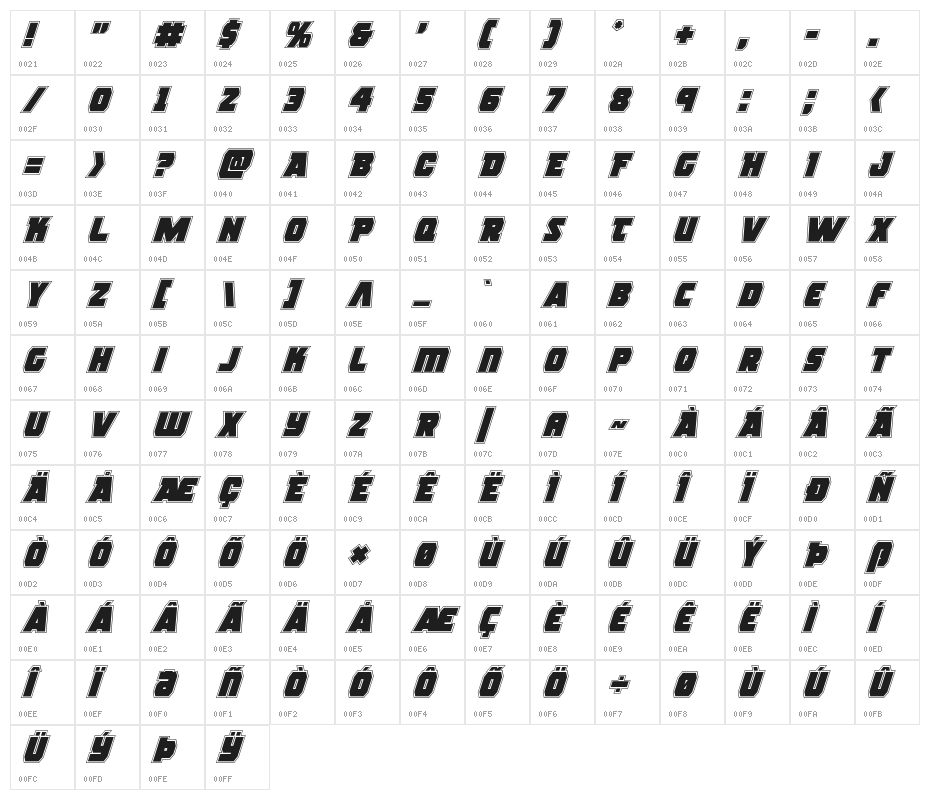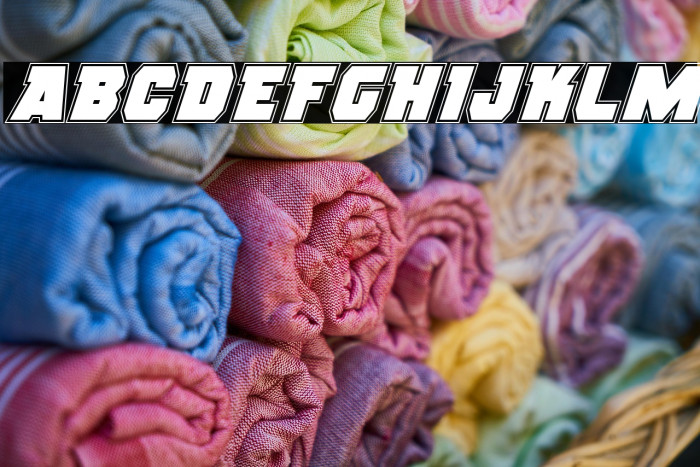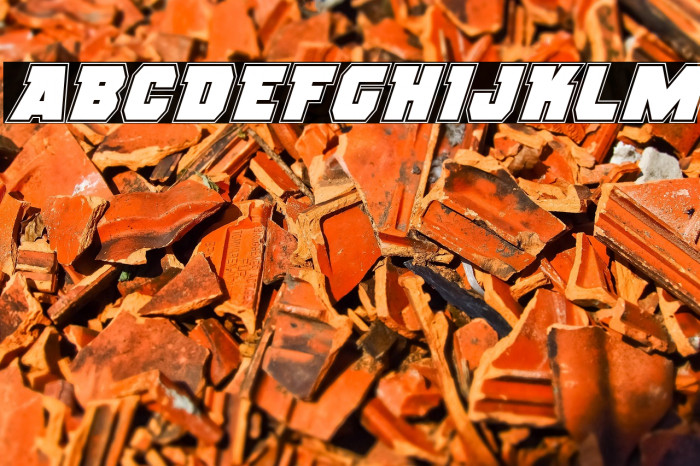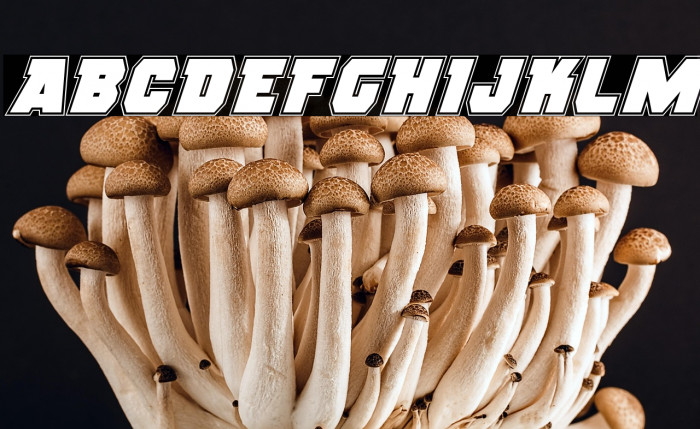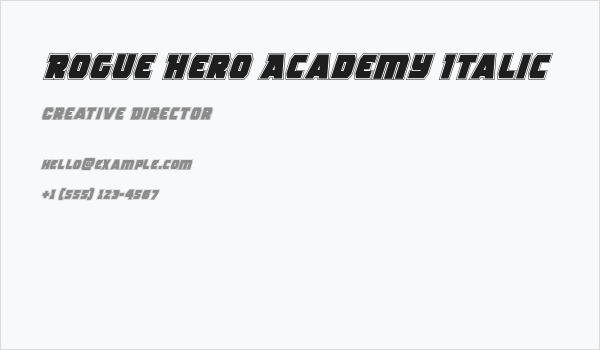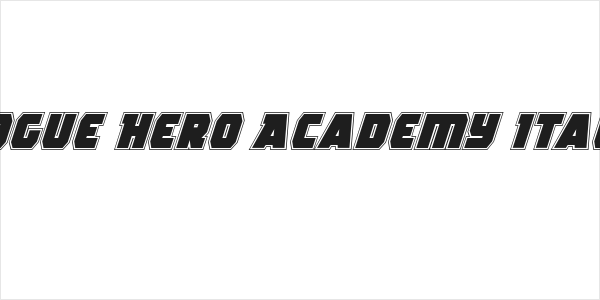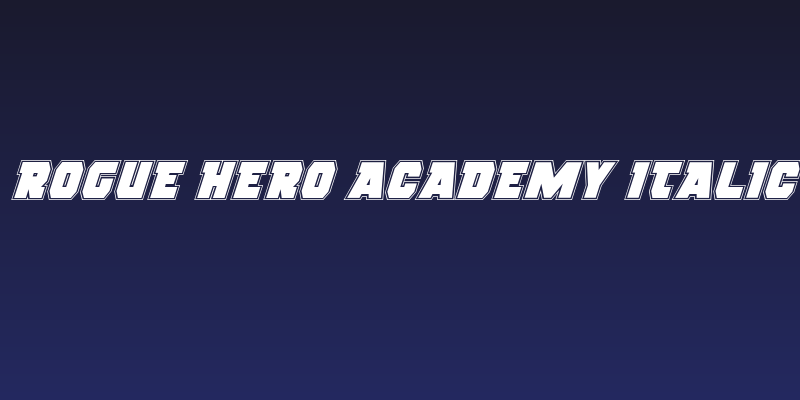
Rogue Hero Academy Italic Font
Rogue Hero Academy Italic Description
This font features a bold, italicized style with a strong, dynamic presence. The characters are designed with a thick, blocky structure, giving them a robust and impactful appearance. The italic slant adds a sense of motion and energy, making it ideal for attention-grabbing headlines or titles. Each letter is outlined with a contrasting stroke, enhancing its visibility and adding a layer of depth. The font maintains a consistent weight throughout, ensuring uniformity and balance across all characters. Its geometric shapes and sharp angles contribute to a modern and edgy aesthetic, suitable for projects that require a bold statement.
| Proposed Projects | Ideal for sports branding, action-themed posters, video game titles, and dynamic advertising campaigns. |